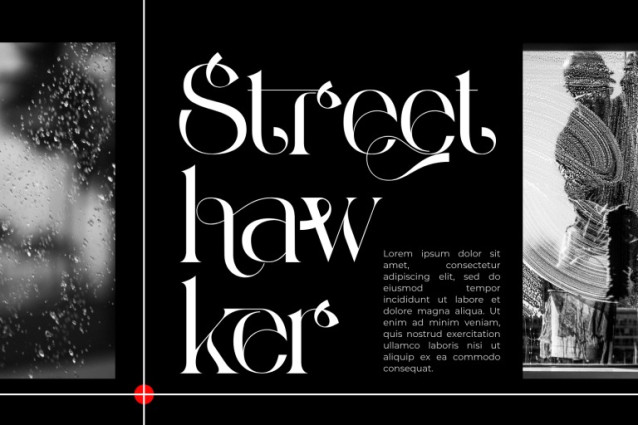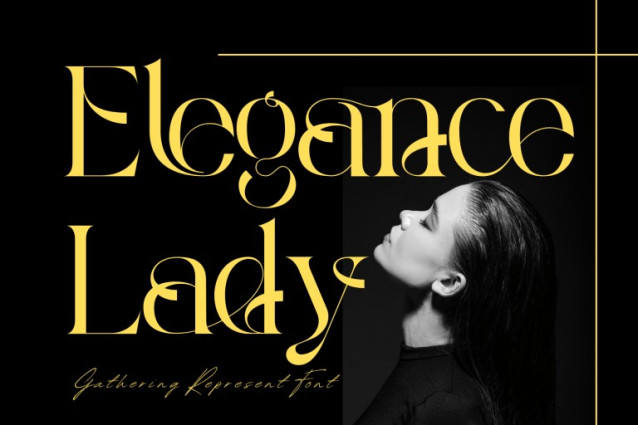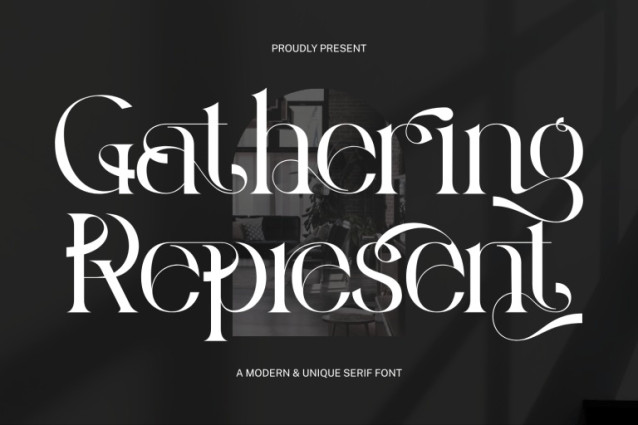
Gathering Represent Font
Gathering Represent – Elegant Font is an elegant calligraphic serif display font designed with graceful curves, dramatic contrast, and refined decorative details. Its flowing swashes and stylish ligatures create a smooth visual rhythm, giving every word a luxurious and expressive character. With its high-contrast letterforms and sophisticated proportions, Gathering Represent is perfect for fashion branding, wedding invitations, beauty packaging, editorial headlines, boutique logos, and premium visual identities.
🔤Features:
Uppercase & Lowercase Letters
Around 100 Special Ligatures & Alternates
Accented Characters for multilingual support
🔤About 100 ligatures combined with Stylistic Alternates Font: